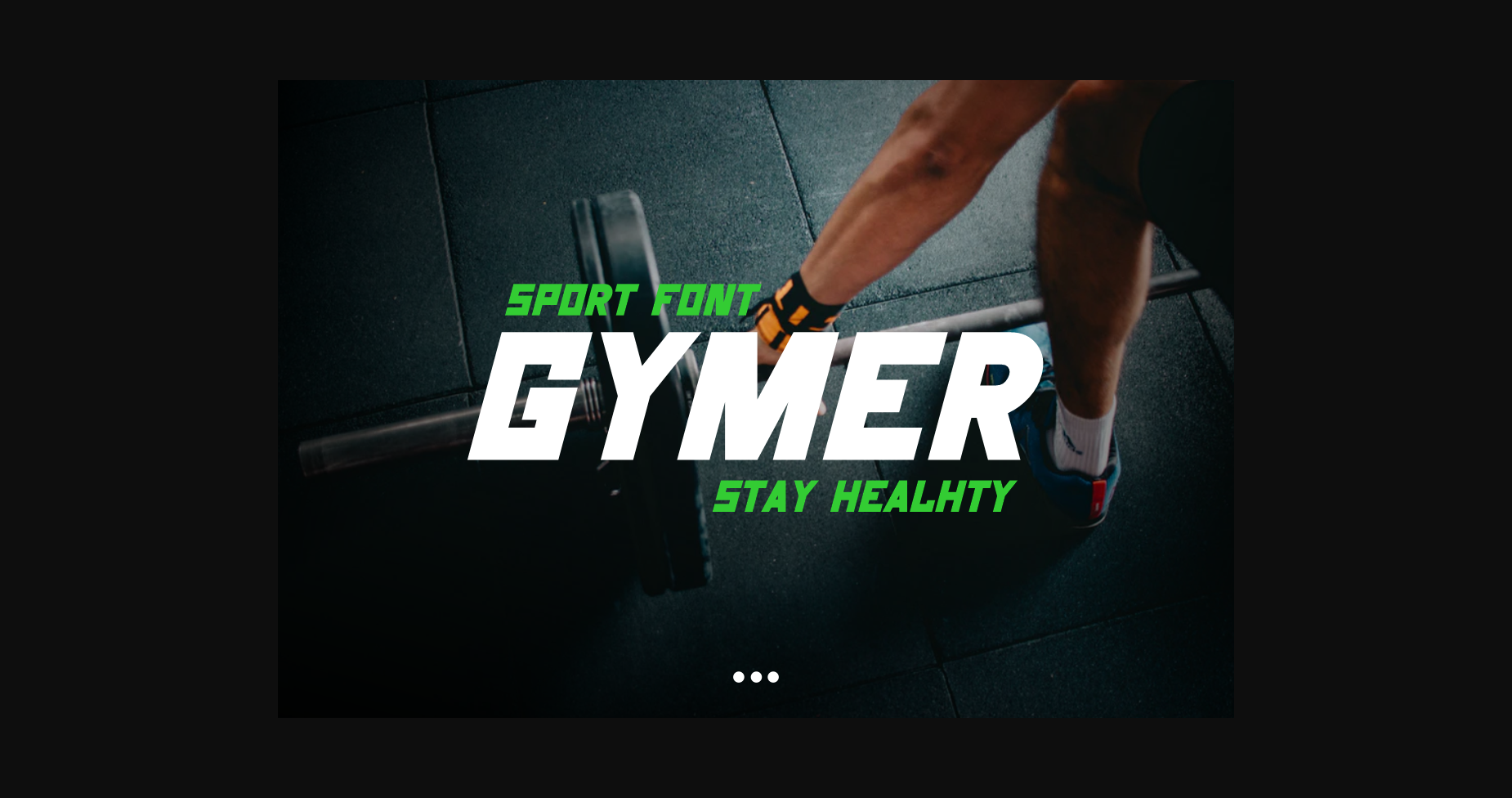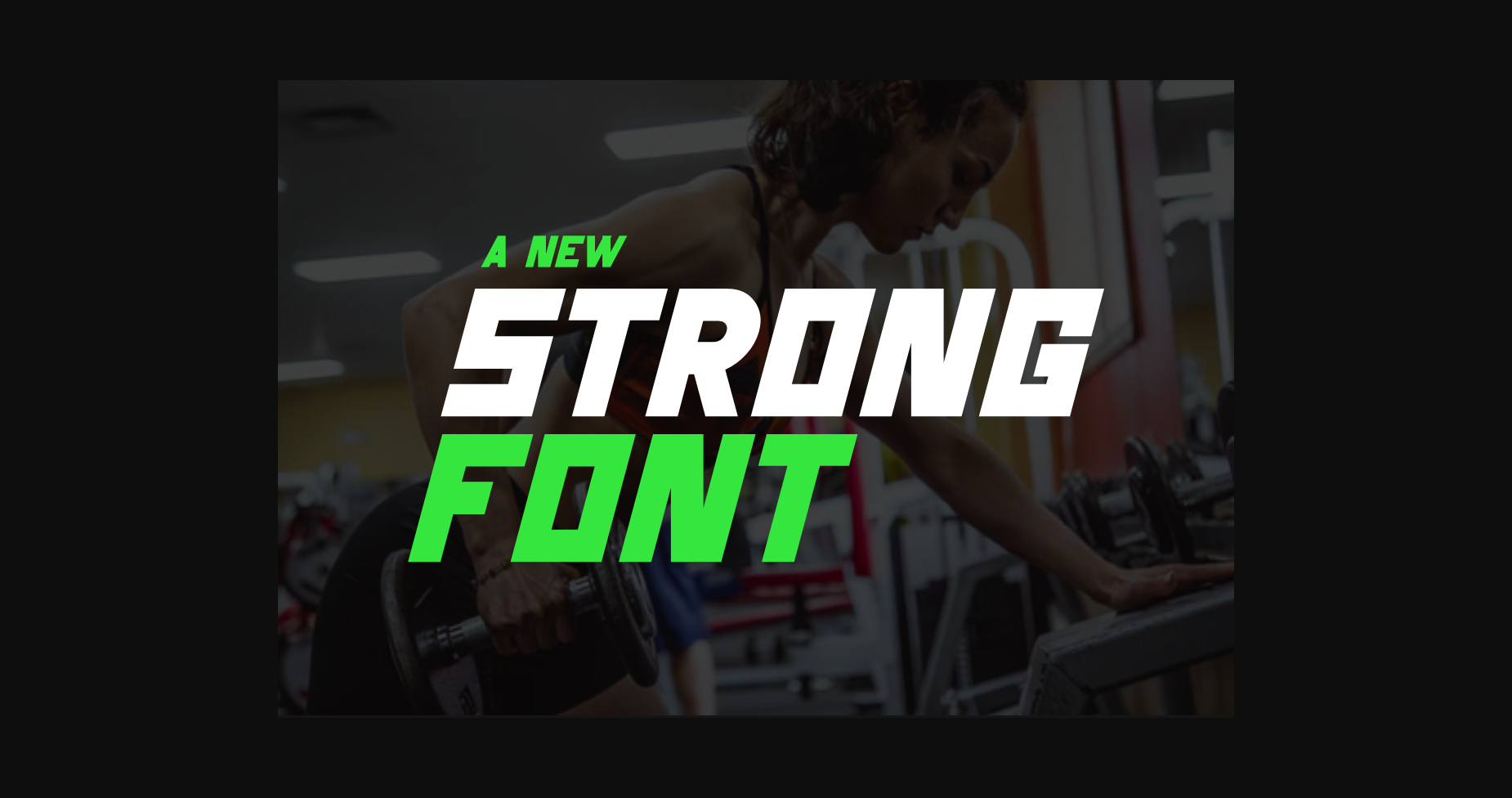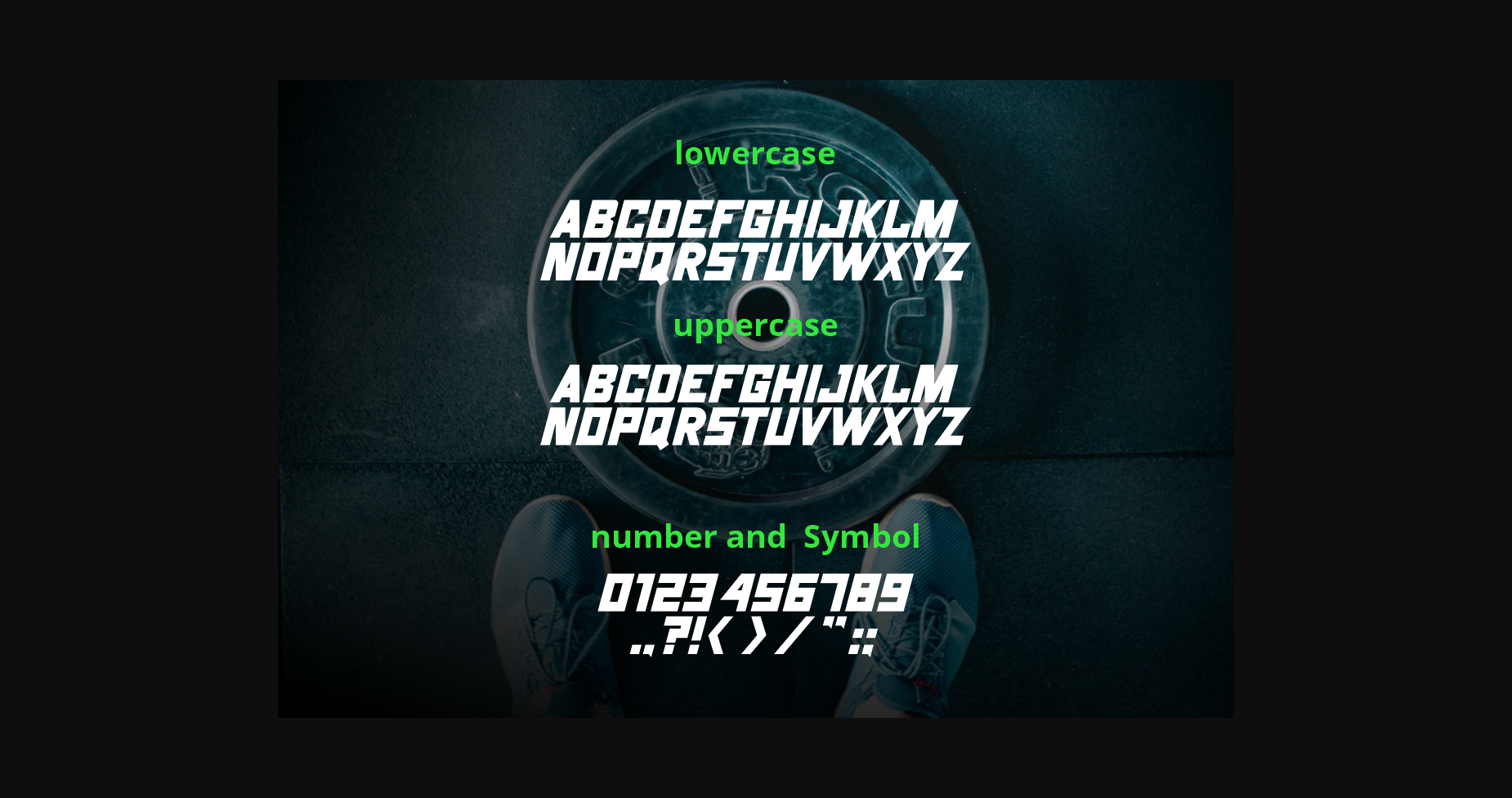
About Gymer Font
Gymer is unique font. Ready to use for your design like labeling, clothing, movie screen, poster, movie title, gigs, album covers, logos, and much more. Gymer is a simple, sharp-looking display font that will truly inspire your works. Use this font for your designs and explore its endless possibilities.